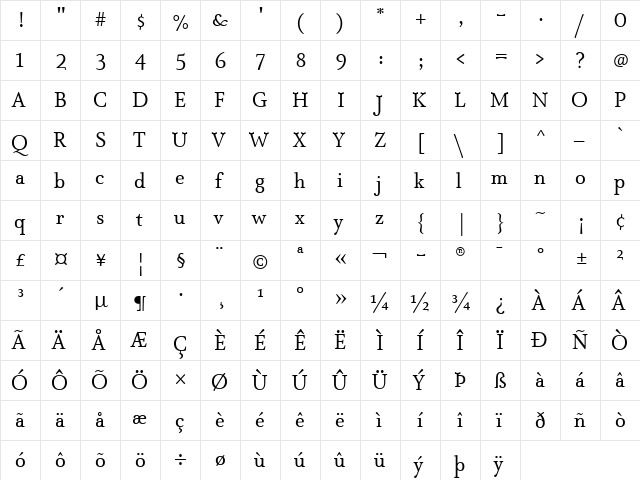
AtmaSerifLF BETA Book
Design Context for AtmaSerifLF BETA Typeface
AtmaSerifLF BETA carries the refined structure of traditional serif typography, with bracketed terminals and considered proportions that communicate credibility and craft.
Pro Tip: Use AtmaSerifLF BETA for editorial body copy and considered headline work. Pair with a neutral sans for UI elements or captions to create a classic hierarchy.